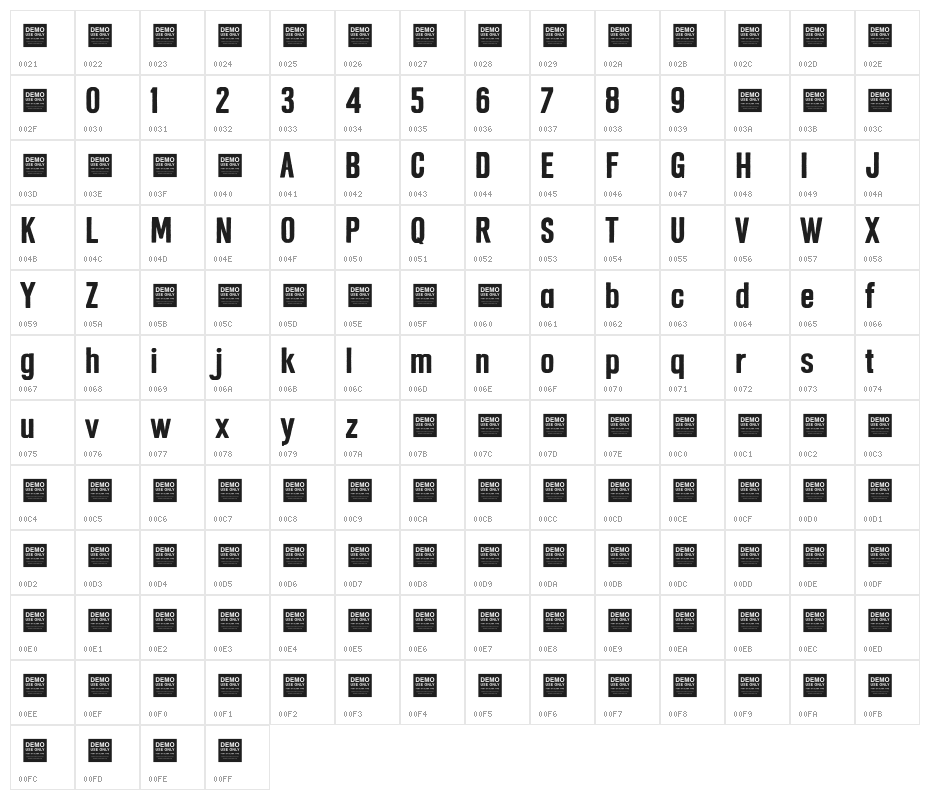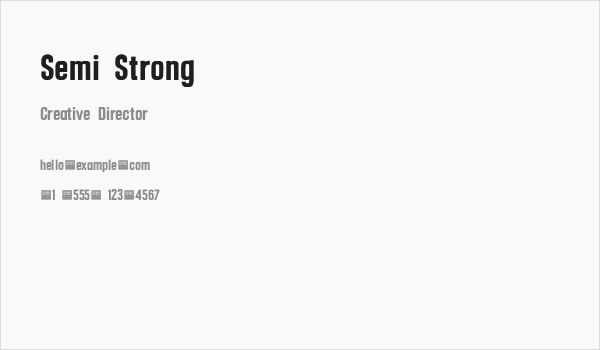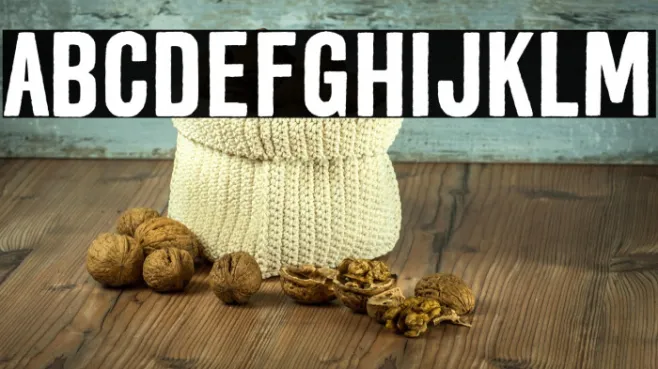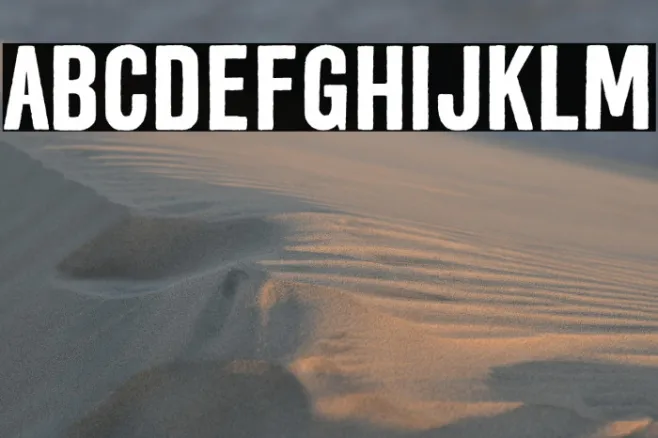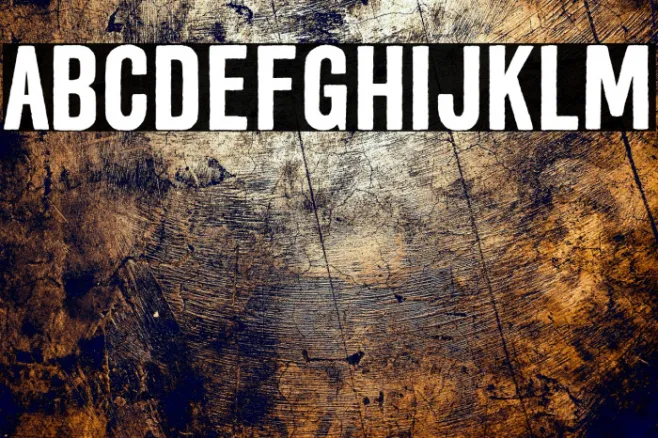
Semi Strong Font
Semi Strong Description
This font features bold, blocky letters with a strong presence, ideal for making a statement. The characters are uniformly thick, providing a consistent and robust appearance. The uppercase and lowercase letters maintain a uniform width, contributing to a cohesive look. The numbers are equally bold, ensuring they stand out clearly. This font is well-suited for impactful designs where readability and emphasis are key. The overall style is modern and assertive, making it suitable for a variety of applications.
| Proposed Projects | Ideal for headlines, posters, branding, and any design requiring a bold statement. |